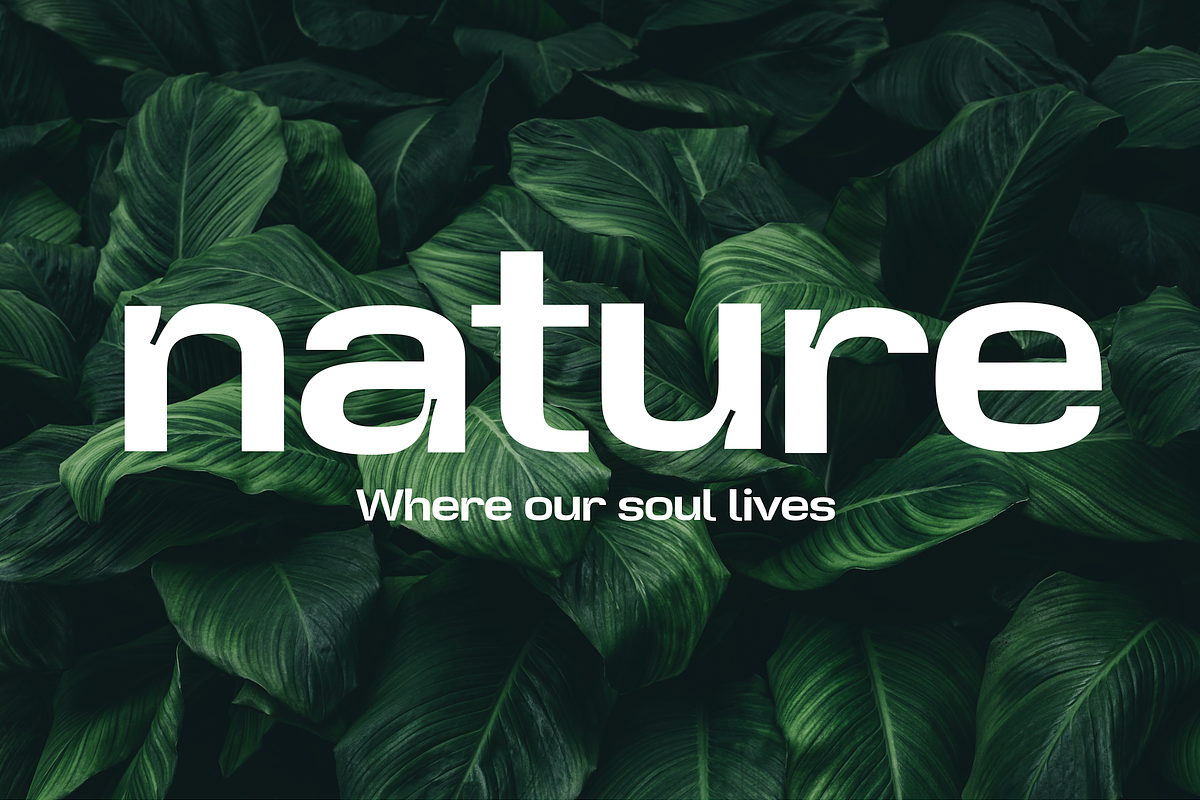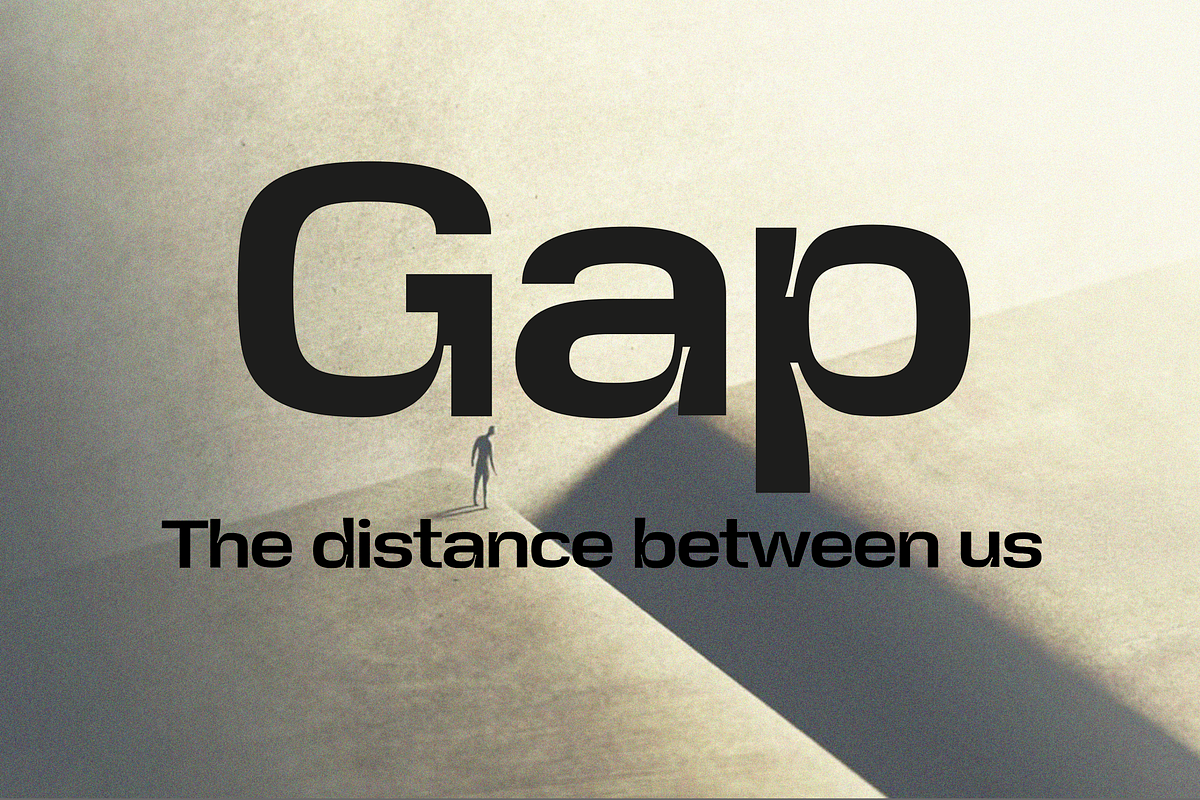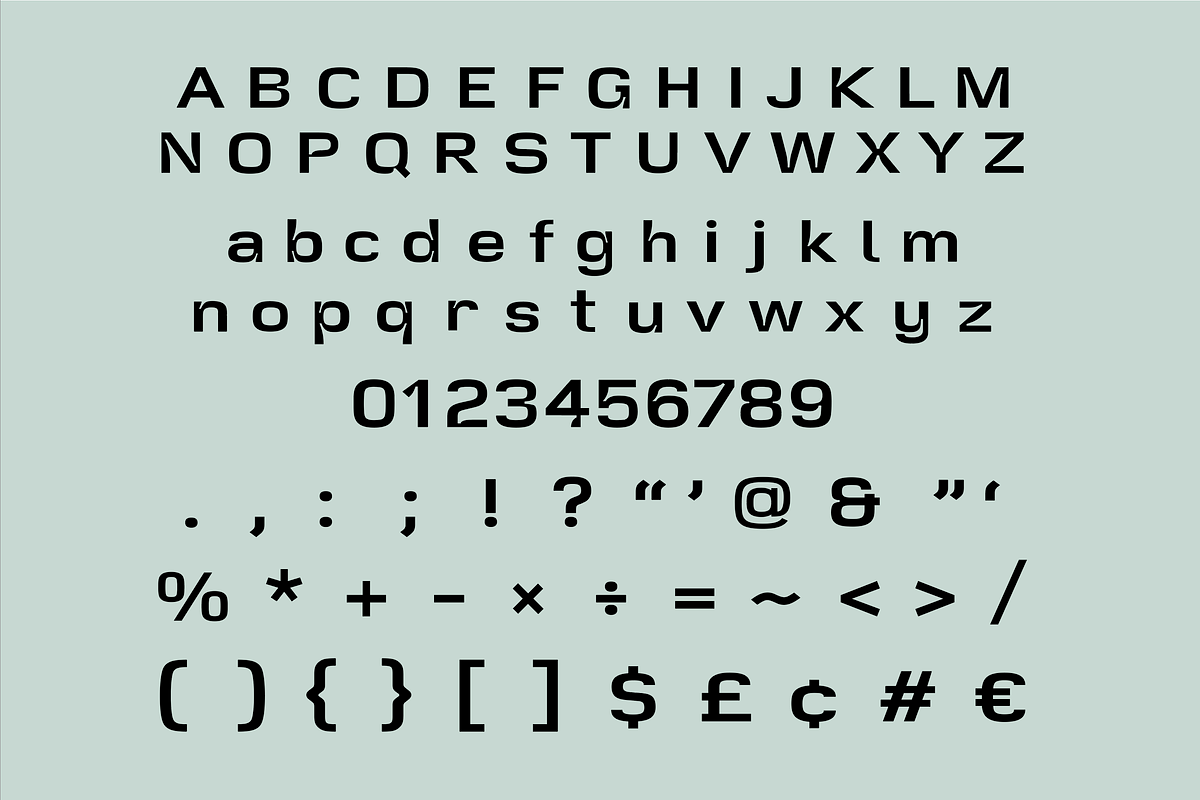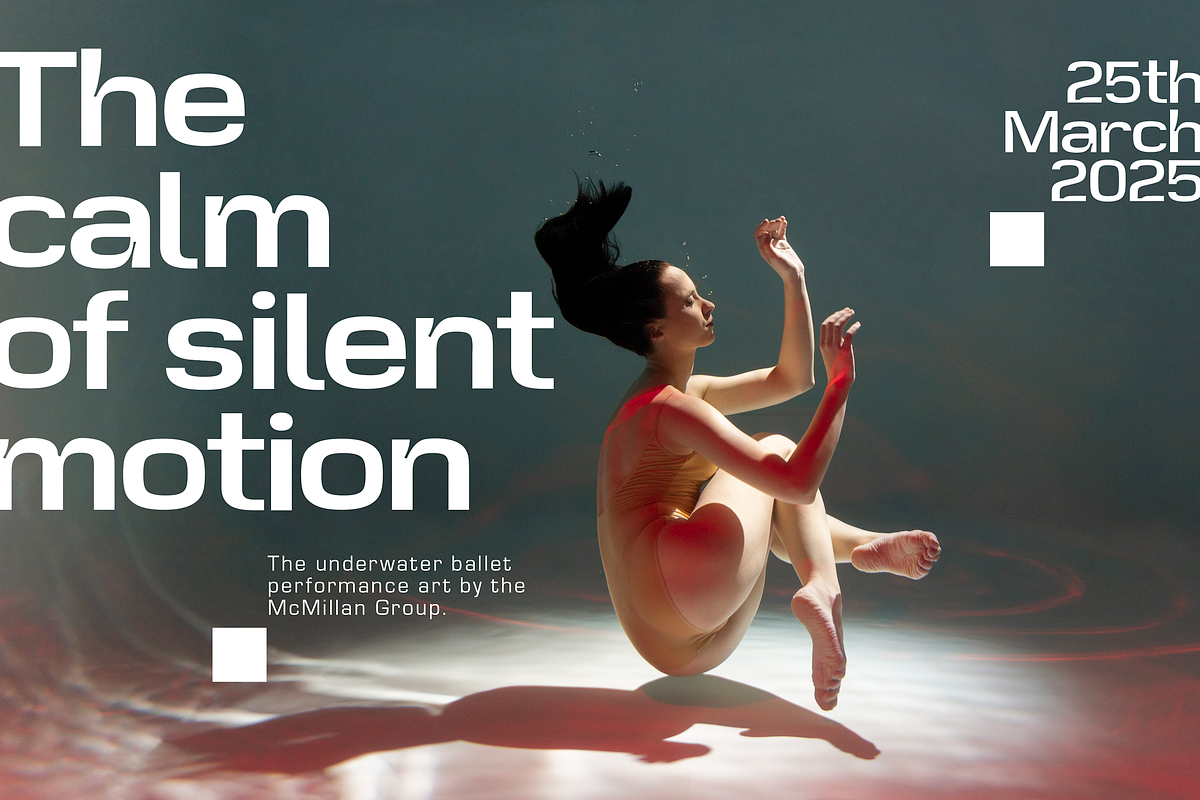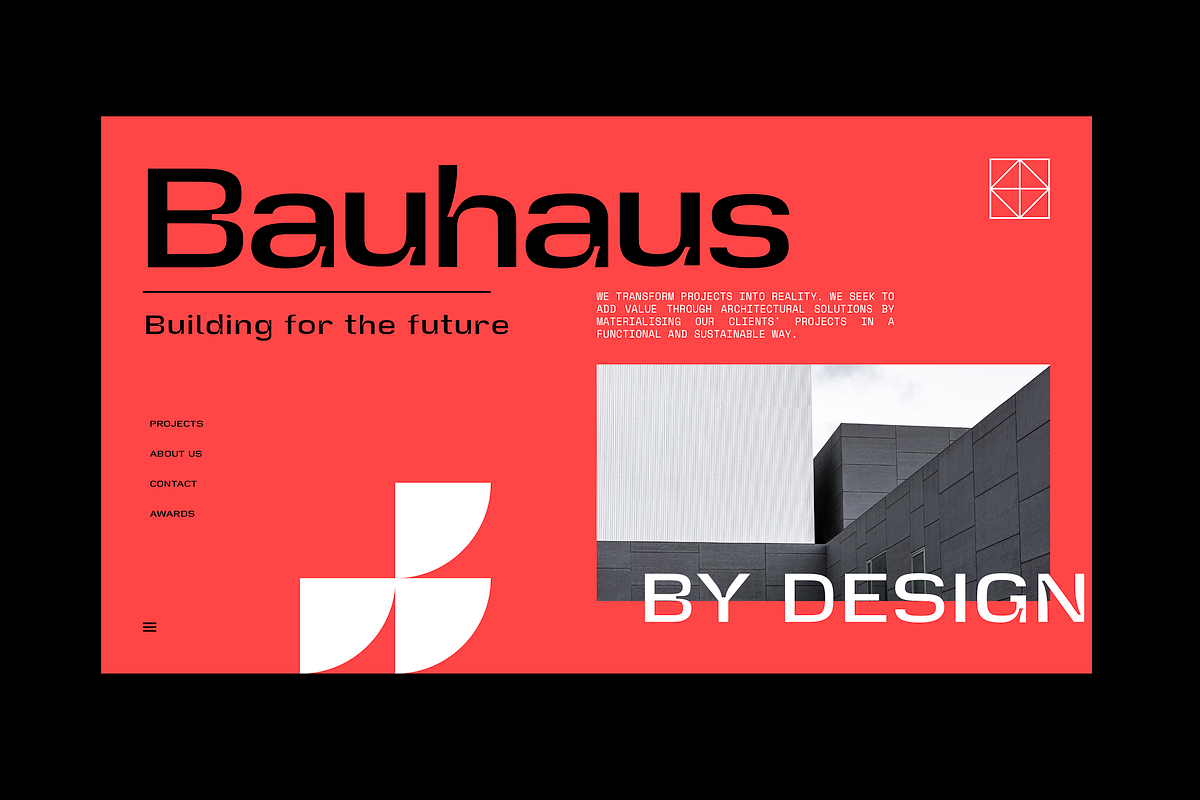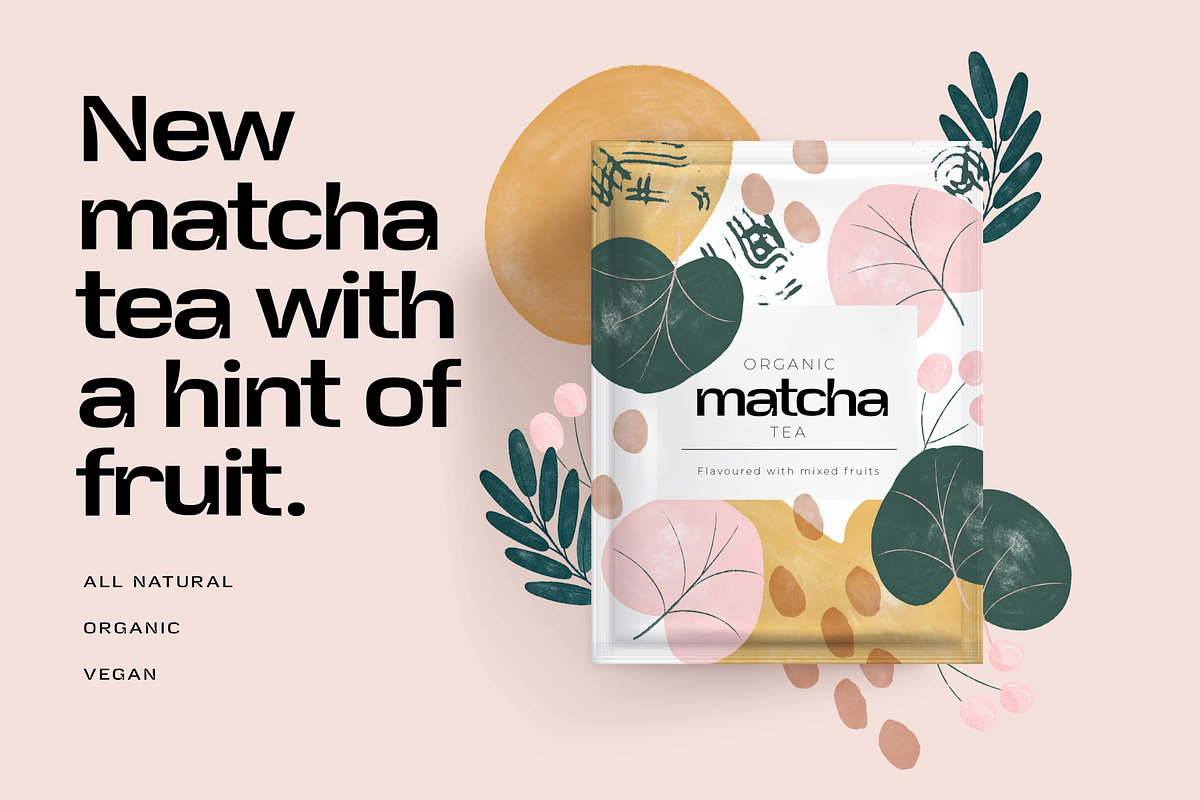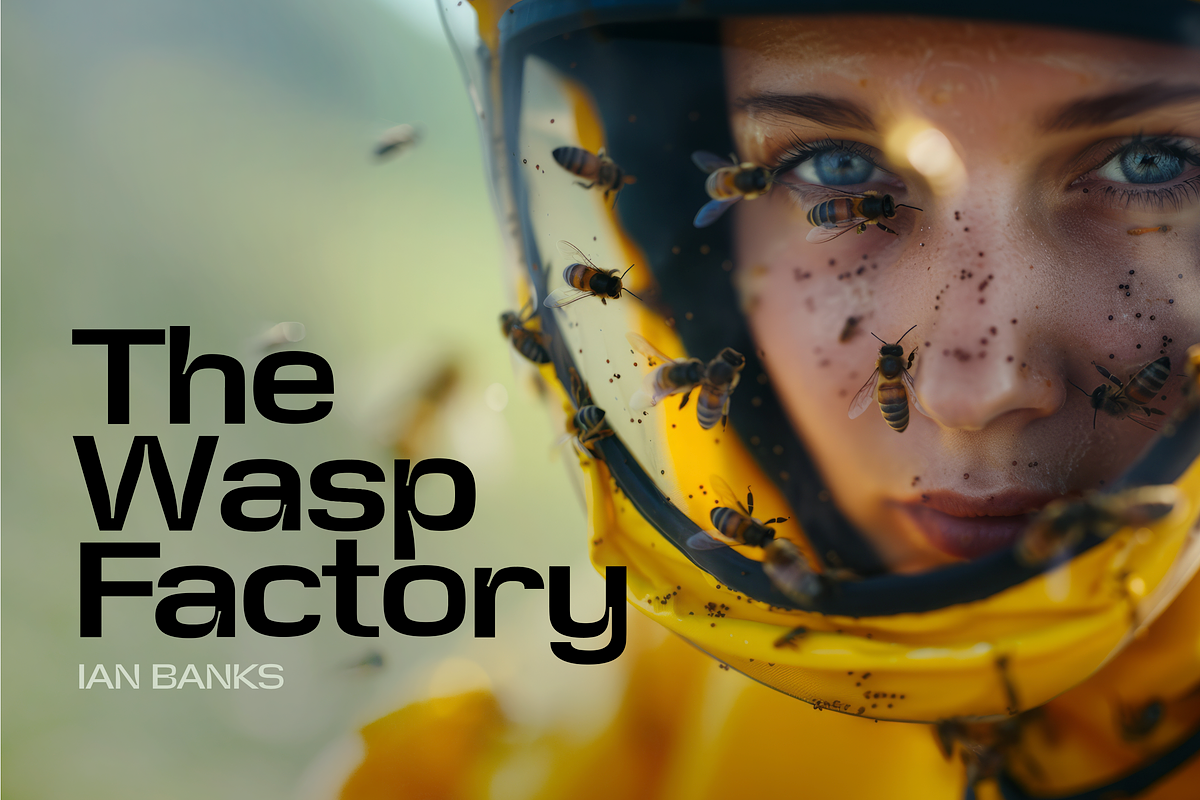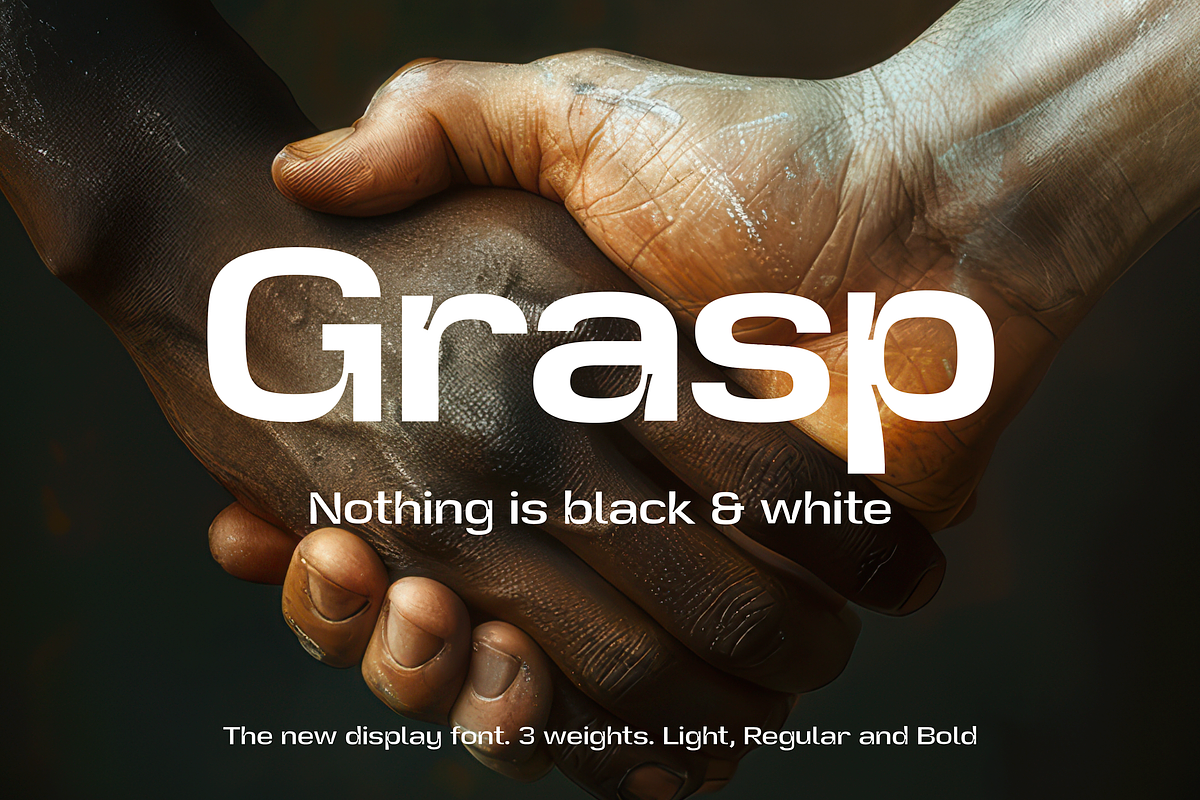
Grasp
A character display font in 3 weights, light, regular and bold. A clean square sans serif with defined ink traps that gives a contemporary, elegant and distinctive feel. A font that gives every creative concept a unique, stand-out point of difference. This is a font that makes a statement and gets noticed.